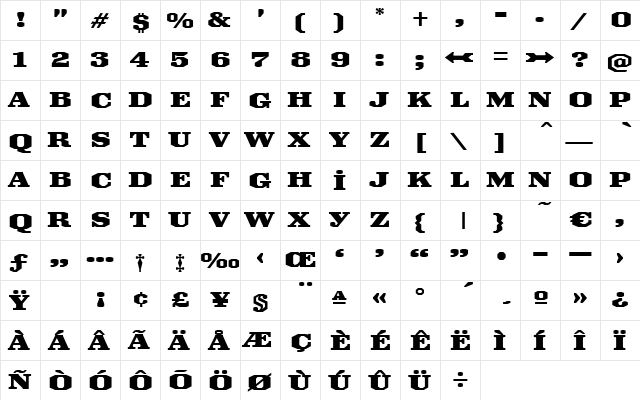
Anchorage Regular
Design Context for Anchorage Typeface
Anchorage takes a measured approach to typography — its balanced proportions and neutral character make it a reliable workhorse for both digital and print work.